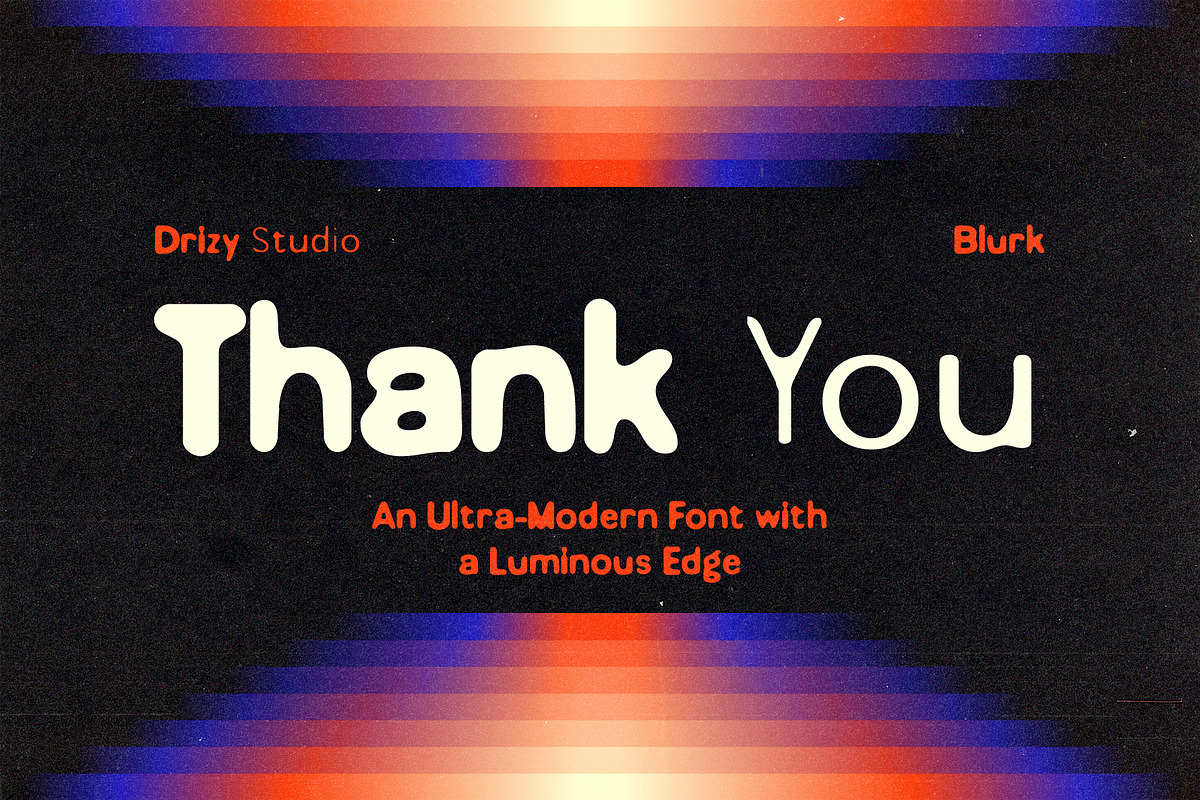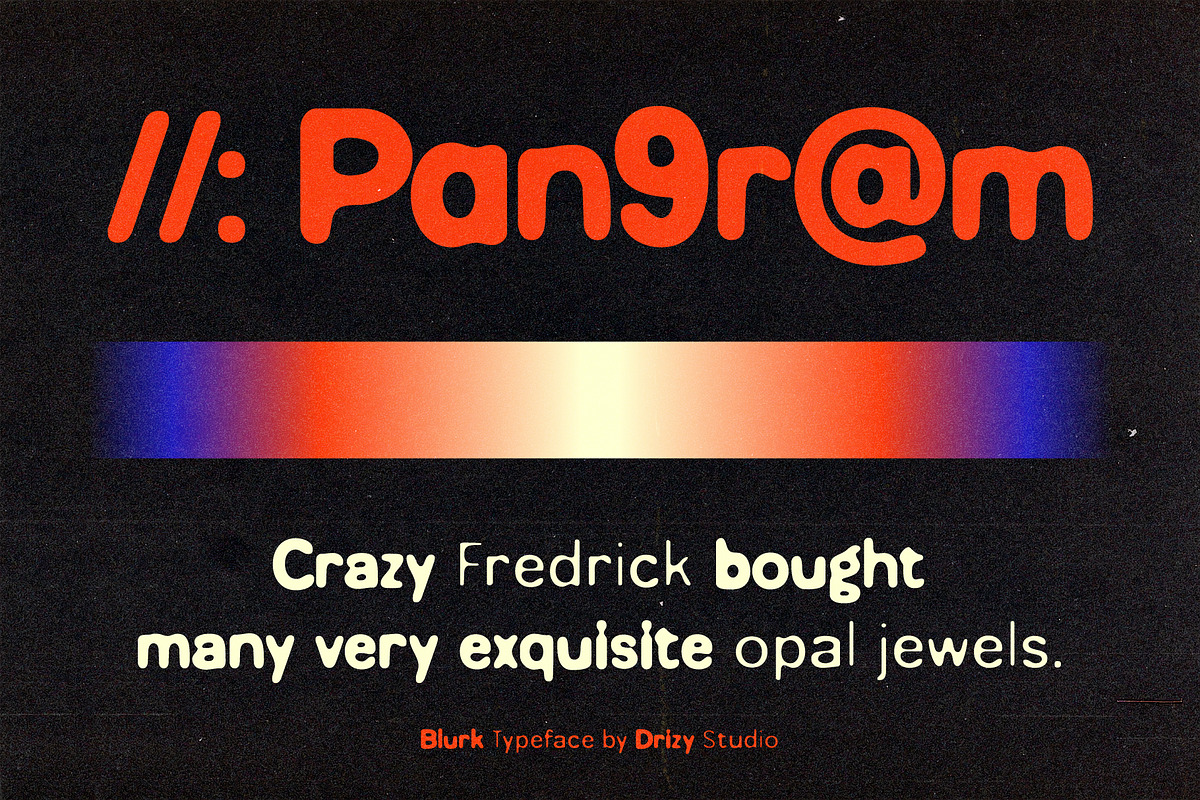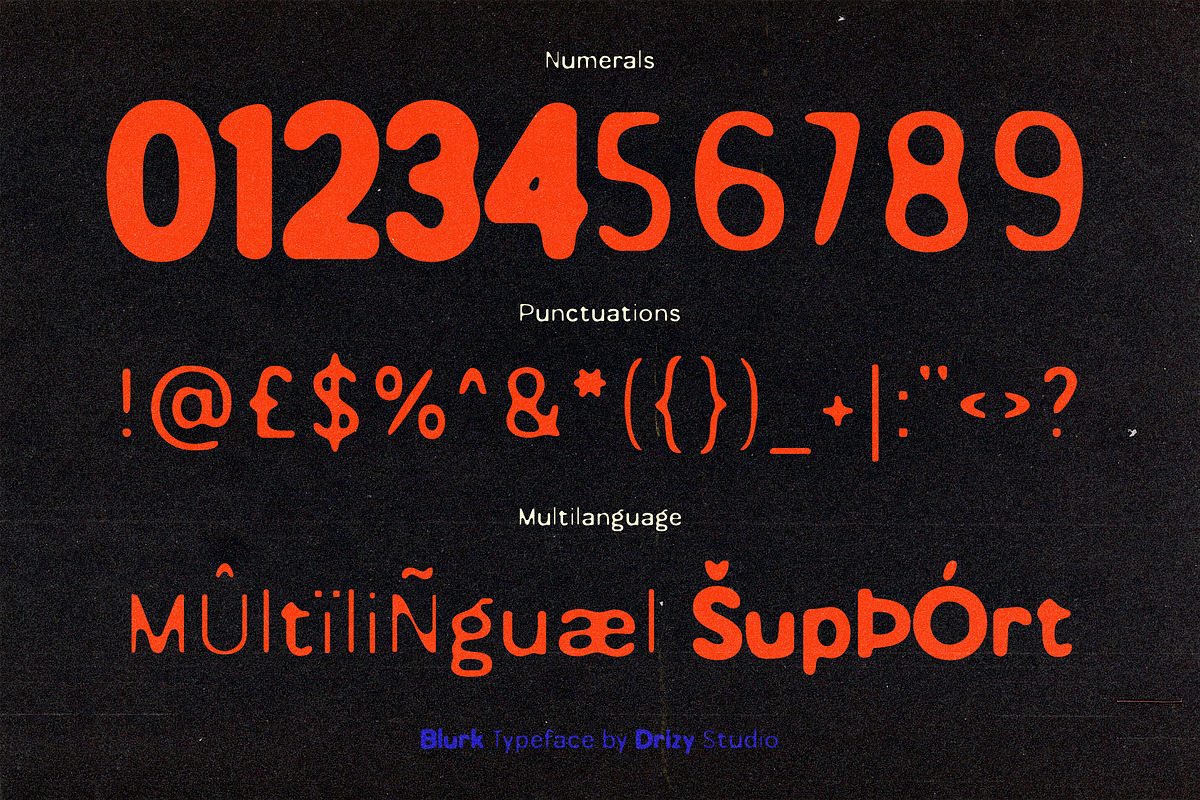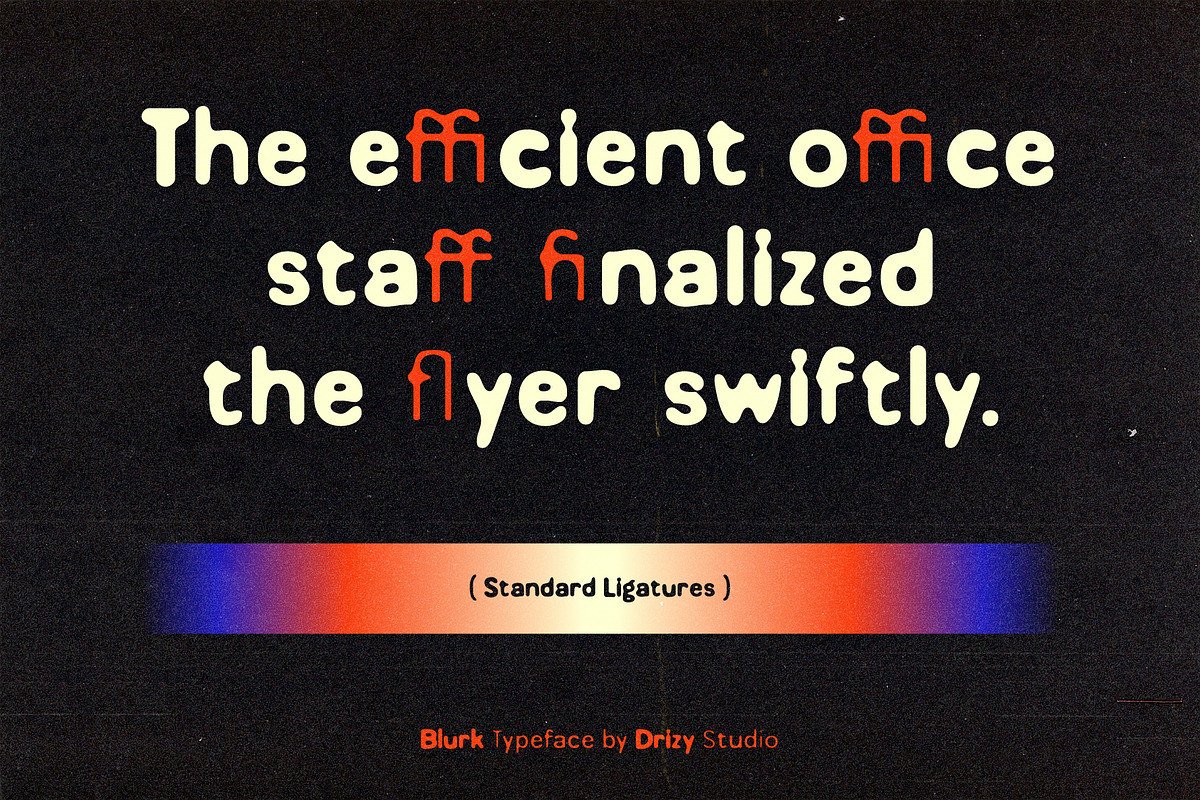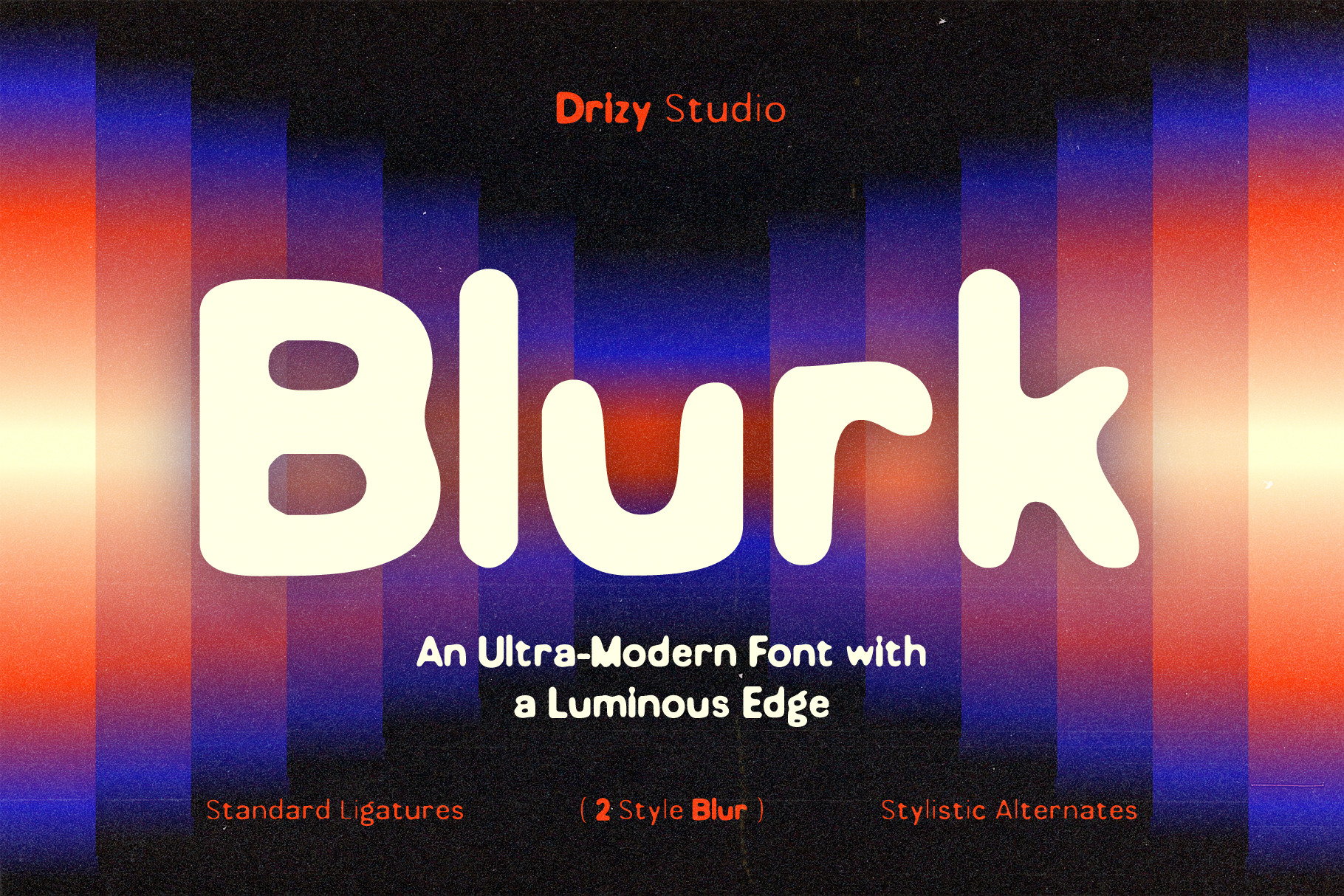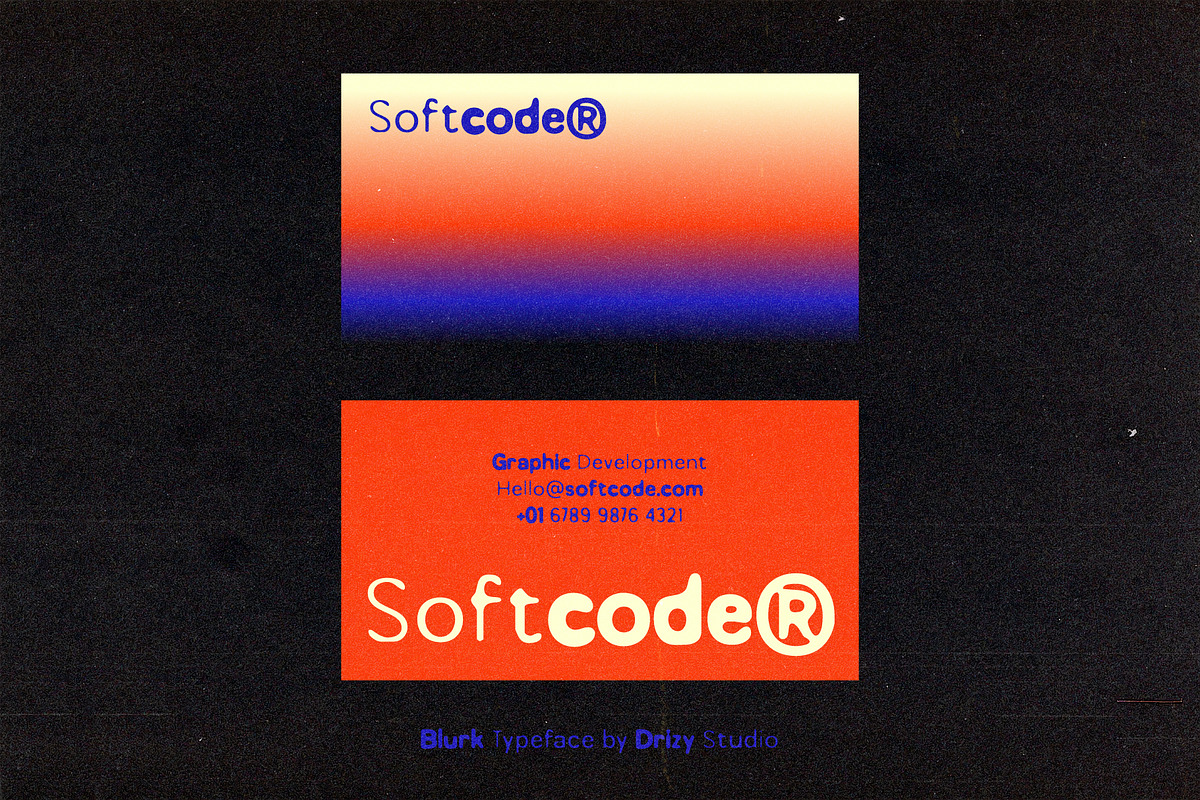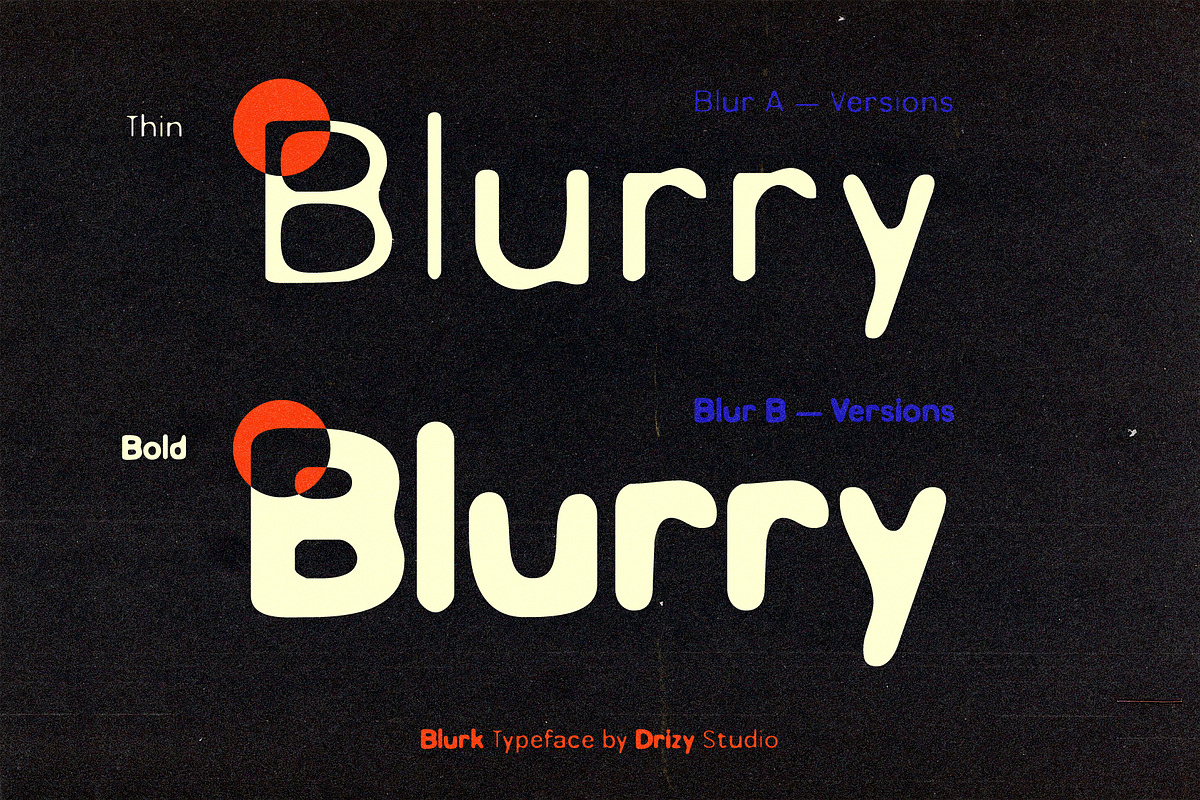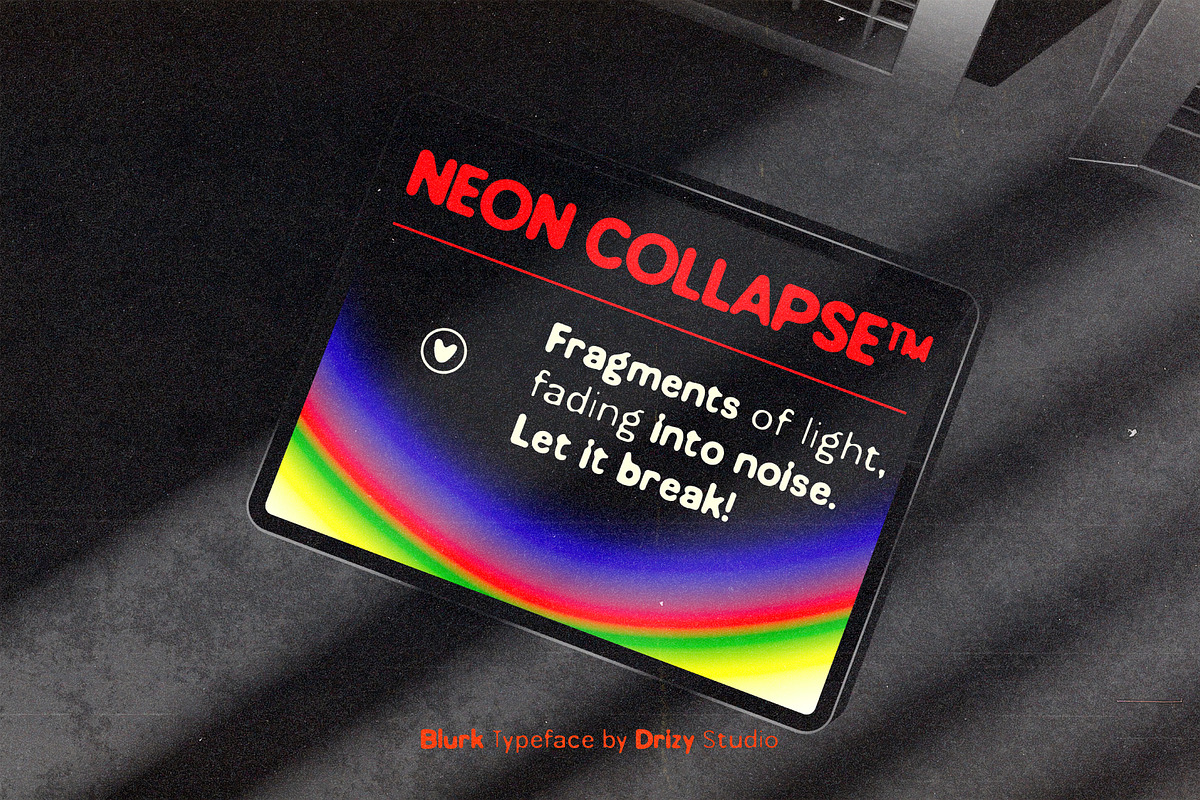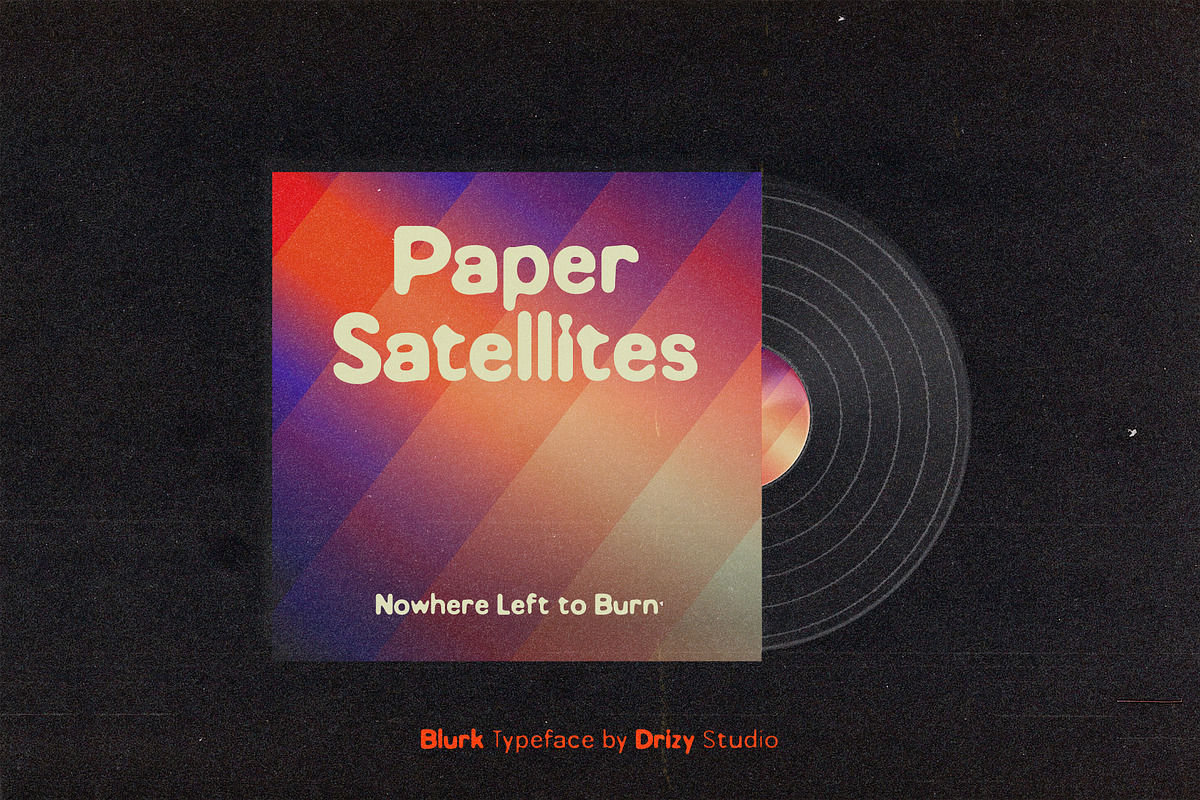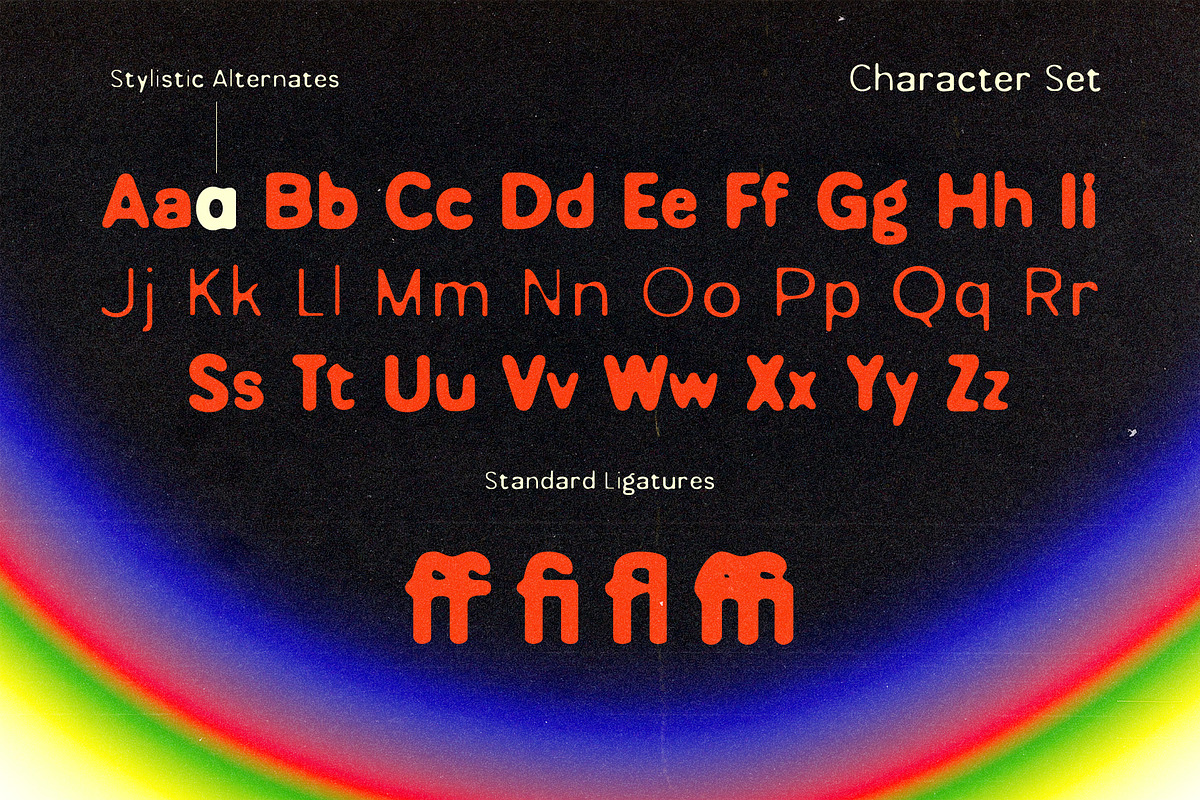
Blurk – Ultra Modern Font
Blurk – Ultra Modern Font is a cutting-edge typeface designed to bring futuristic elegance to your projects. With its sleek geometry and innovative Luminous Weight Varfont technology, Blurk adapts seamlessly across bold to delicate styles, giving designers full creative control. Perfect for digital interfaces, branding, posters, and high-impact visuals, this font delivers a striking modern aesthetic while maintaining sharp readability. Blurk isn’t just a typeface—it’s a versatile design tool for those who want their typography to glow with sophistication and innovation.
Blurk – Ultra Modern Font features:
- Punctuation & Numbers
- 2 Style Blur: Thin & Bold
Elevate and explore the design possibilities with this Luminous Weight Varfont!